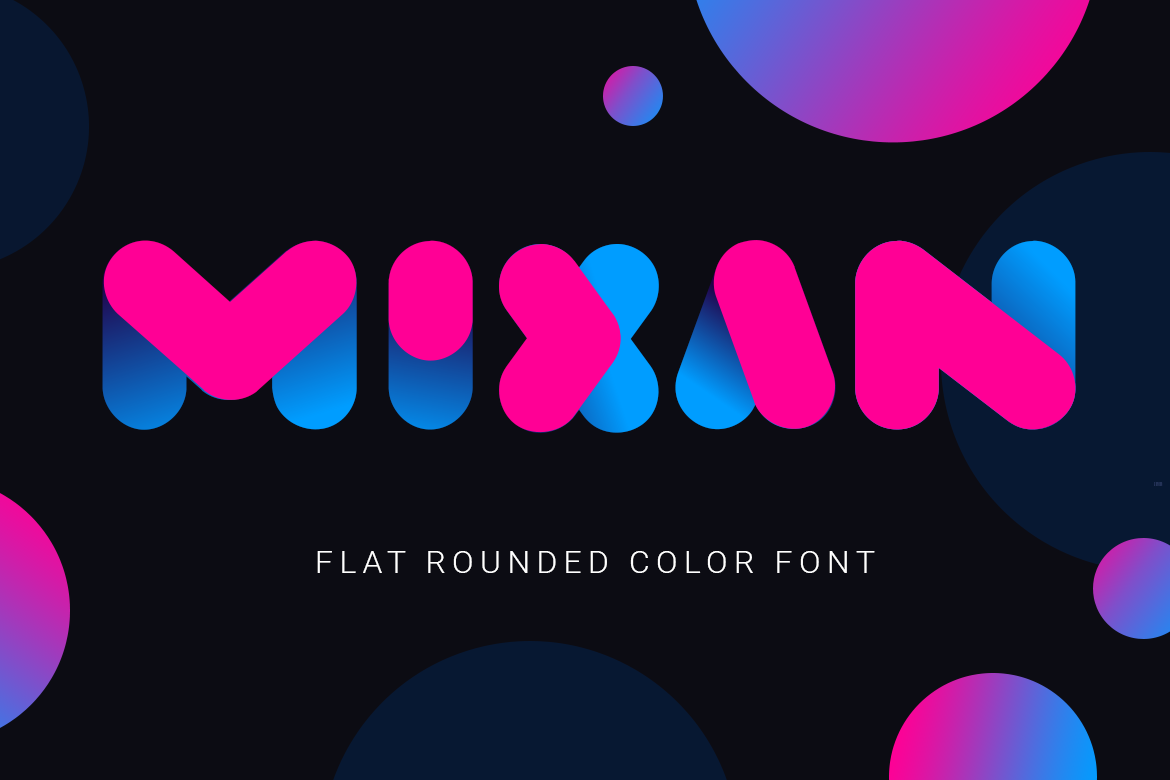
Mixan| bold color font
Mixan is a bright fashion sans serif font designed with rounded thick letters. The font is bold and bicolor, it works great to make short color titles.
Mixan font is really a color font, you can type text with it right away like on the cover, you don't need to manually do additional steps. To do this, you need to use programs that support colored fonts, for example, Adobe Illustrator (versions 2018 and above).